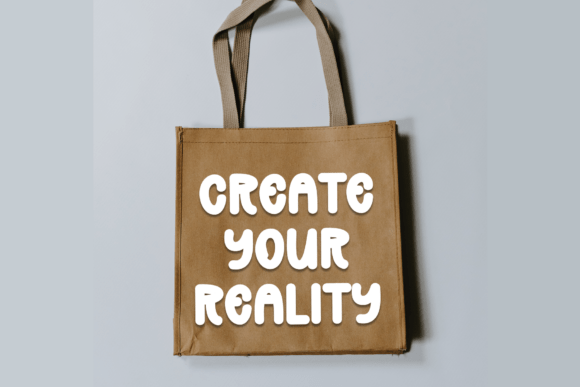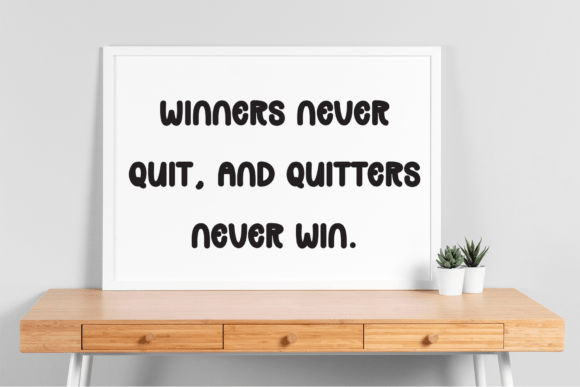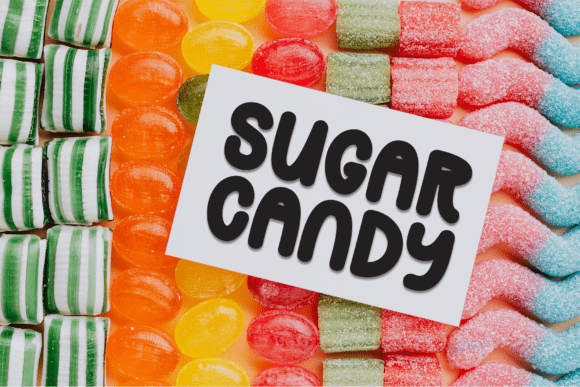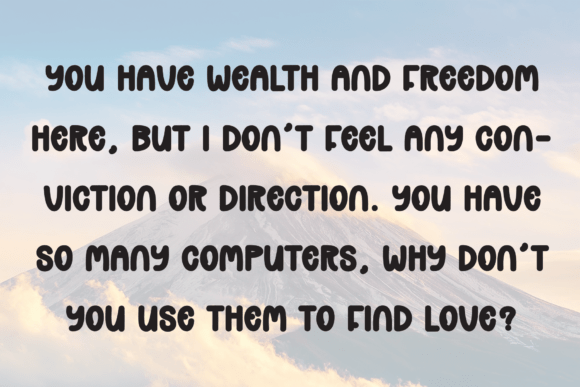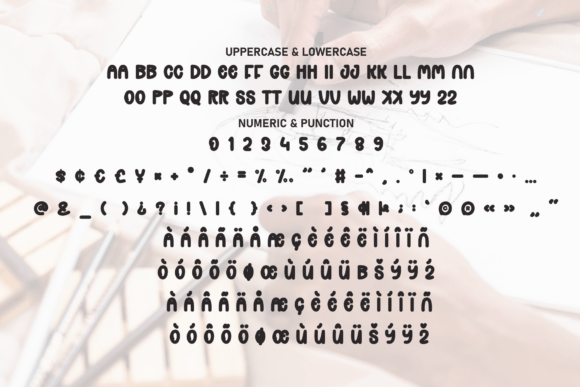
Introducing Drawing Dreaming Font: The Perfect Blend of Clarity and Relaxed Style
Are you on the hunt for a font that embodies the perfect balance of modernity and laid-back charm? Look no further than the Drawing Dreaming font. This neat and casual display font is designed to bring a touch of approachability and friendliness to your designs, making it an ideal choice for a wide range of projects.
Clean Lines, Friendly Letterforms, and Endless Possibilities
Drawing Dreaming boasts clean lines and friendly letterforms that make it perfect for use in headlines, posters, packaging, and branding. Its balanced structure and playful energy bring a unique personality to any project, allowing designers to add a touch of whimsy without overwhelming the message. Whether you’re working on a modern and trendy design or a more laid-back and casual project, Drawing Dreaming is the perfect choice.
The Benefits of Drawing Dreaming Font
So, what sets Drawing Dreaming apart from other fonts? Here are just a few benefits that make it a top choice for designers and crafters:
- Readability: Despite its playful and casual vibe, Drawing Dreaming remains highly readable, even at smaller sizes. This makes it perfect for use in a variety of design applications, from posters and flyers to digital screens and social media graphics.
- Versatility: Drawing Dreaming is a highly versatile font that can be used in a wide range of design projects. Whether you’re working on a modern and trendy design or a more laid-back and casual project, this font is sure to fit the bill.
- Personality: Drawing Dreaming has a unique personality that sets it apart from more traditional fonts. Its playful energy and friendly letterforms bring a touch of whimsy to any design, making it perfect for brands and designers who want to add a bit of fun and personality to their work.
Drawing Dreaming is a font that’s specifically designed with designers and crafters in mind. Its clean lines, friendly letterforms, and playful energy make it perfect for use in a wide range of design applications, from graphic design and branding to crafting and DIY projects.
Whether you’re a professional designer or a crafty DIY enthusiast, Drawing Dreaming is a font that’s sure to inspire your creativity. Its unique blend of modernity and laid-back charm makes it perfect for use in a variety of projects, from modern and trendy designs to more laid-back and casual applications.
Tips for Using Drawing Dreaming Font
So, how can you get the most out of Drawing Dreaming font? Here are a few tips to keep in mind:
- Use it as a display font: Drawing Dreaming is a display font that’s specifically designed to make a statement. Use it to add a touch of personality and whimsy to your headlines, posters, and other design elements.
- Pair it with contrasting fonts: To add visual interest to your designs, try pairing Drawing Dreaming with contrasting fonts. A bold and modern sans-serif font, for example, can provide a nice contrast to the playful and casual vibe of Drawing Dreaming.
- Experiment with colors and textures: Drawing Dreaming is a font that lends itself well to experimentation with colors and textures. Try using it with bold and bright colors, or add a textured overlay to give your designs a more tactile feel.
In conclusion, Drawing Dreaming font is a unique and versatile font that’s perfect for designers and crafters who want to add a touch of personality and whimsy to their designs. Its clean lines, friendly letterforms, and playful energy make it perfect for use in a wide range of design applications, from graphic design and branding to crafting and DIY projects.
Whether you’re working on a modern and trendy design or a more laid-back and casual project, Drawing Dreaming is a font that’s sure to inspire your creativity. So why not give it a try and see how it can bring a touch of magic to your designs?